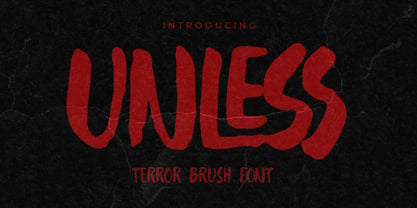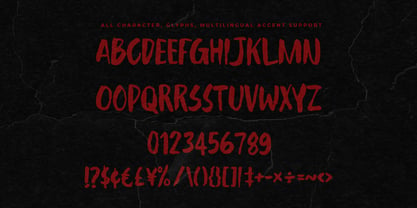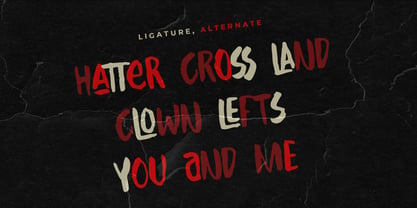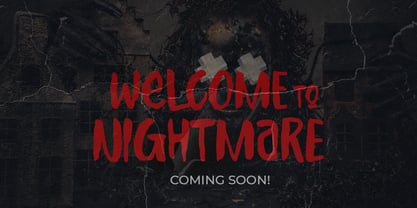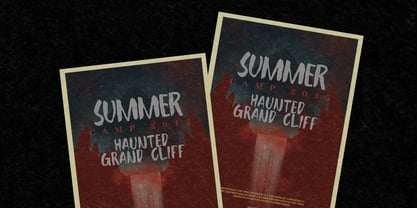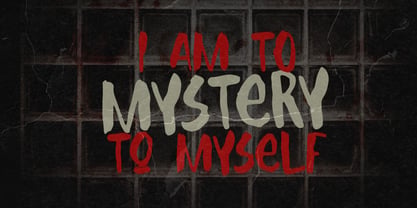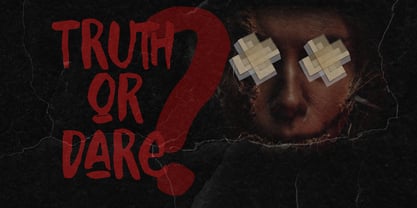
Unless
by Gassstype
The Unless Font Family was designed by Abdul Malik Wisnu, Anang Fibriyanto and published by Gassstype. Unless contains 1 styles. More about this family
Introducing of our new product Unless is Terror Brush Font and Multilanguage support font with a dramatic movement with special alternative glyph and Ligature glyph.
This font is great for your next creative project such as logos, printed quotes, invitations, cards, product packaging, headers, Logotype, Letterhead, Poster, Label, and etc.
That is why Unless has Rough and strong characteristic more natural look to your text with a more modern look to your text.
You can activate Ligature and Alternative glyphs OpenType panel .
Unless is perfect for homeware designs,branding projects, Logo design, Quotes product packaging,and cartoon.
Designers: Abdul Malik Wisnu, Anang Fibriyanto
Foundry: Gassstype